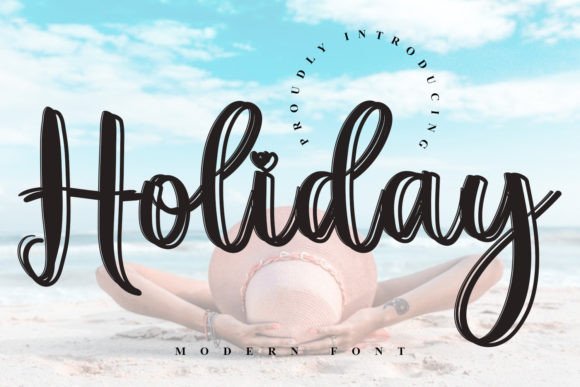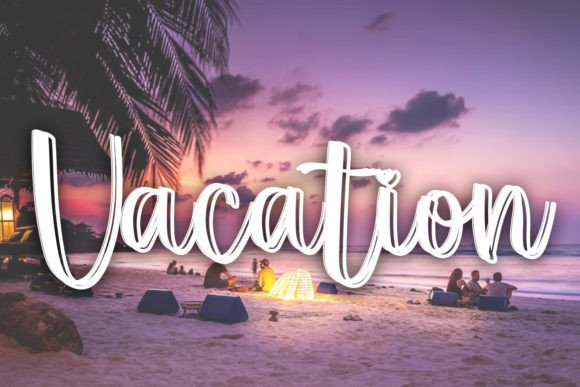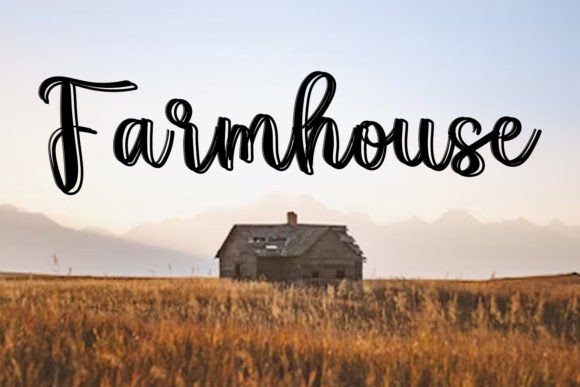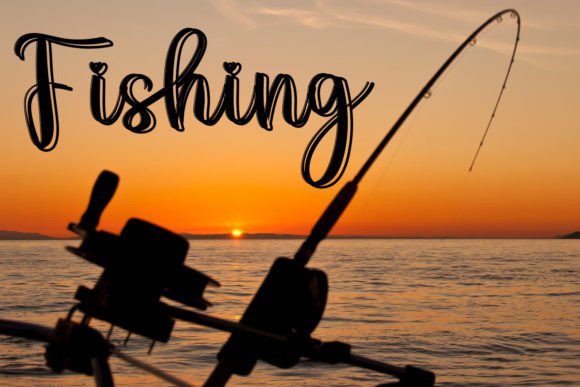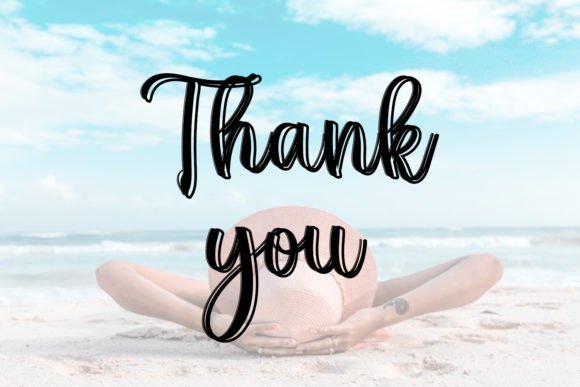
Unwrapping the Magic of Holiday Font
As a designer, there’s nothing quite like the thrill of brainstorming ideas for a new project. You’re browsing through a sea of fonts, trying to find that perfect match that captures the essence of your concept. And then, it happens – you stumble upon a font that makes your heart skip a beat. For me, that moment came when I discovered the enchanting Holiday Font. Its elegant script and flowing lines transported me to a world of sophistication and style.
Designed to add a touch of personality to any design, the Holiday Font is more than just a pretty face. It’s a versatile tool that can elevate your branding, logos, and editorial designs to new heights. With its timeless and contemporary feel, this typeface is a valuable asset for any designer looking to create sophisticated and memorable designs.
- Unique Characteristic: The font features a festive, handwritten style with intricate details and ornaments, perfect for holiday-themed designs
Holiday Font Review
I recently had the chance to work with the Holiday Font, and I must say, it’s a mixed bag. Let’s start with the good stuff. ✨ The font’s playful, festive feel is perfect for winter-themed designs, and the included ornaments and icons add a nice touch. The font itself is quite versatile, working well for both digital and print projects.
- ✨ Wide range of font styles, from bold and bright to elegant and subtle
- ✨ Included ornaments and icons for added visual interest
- ✨ Suitable for both digital and print projects
- ⚠️ Some ornaments and icons feel overused and clichéd
Tips for Getting the Most Out of Holiday Font
For best results, use the Holiday Font in conjunction with festive graphics and colors. Experiment with different font sizes and styles to add visual interest to your design.
Holiday Font is ideal for creating festive holiday cards, invitations, and social media graphics. It’s also great for adding a touch of holiday cheer to your website, blog, or marketing materials.